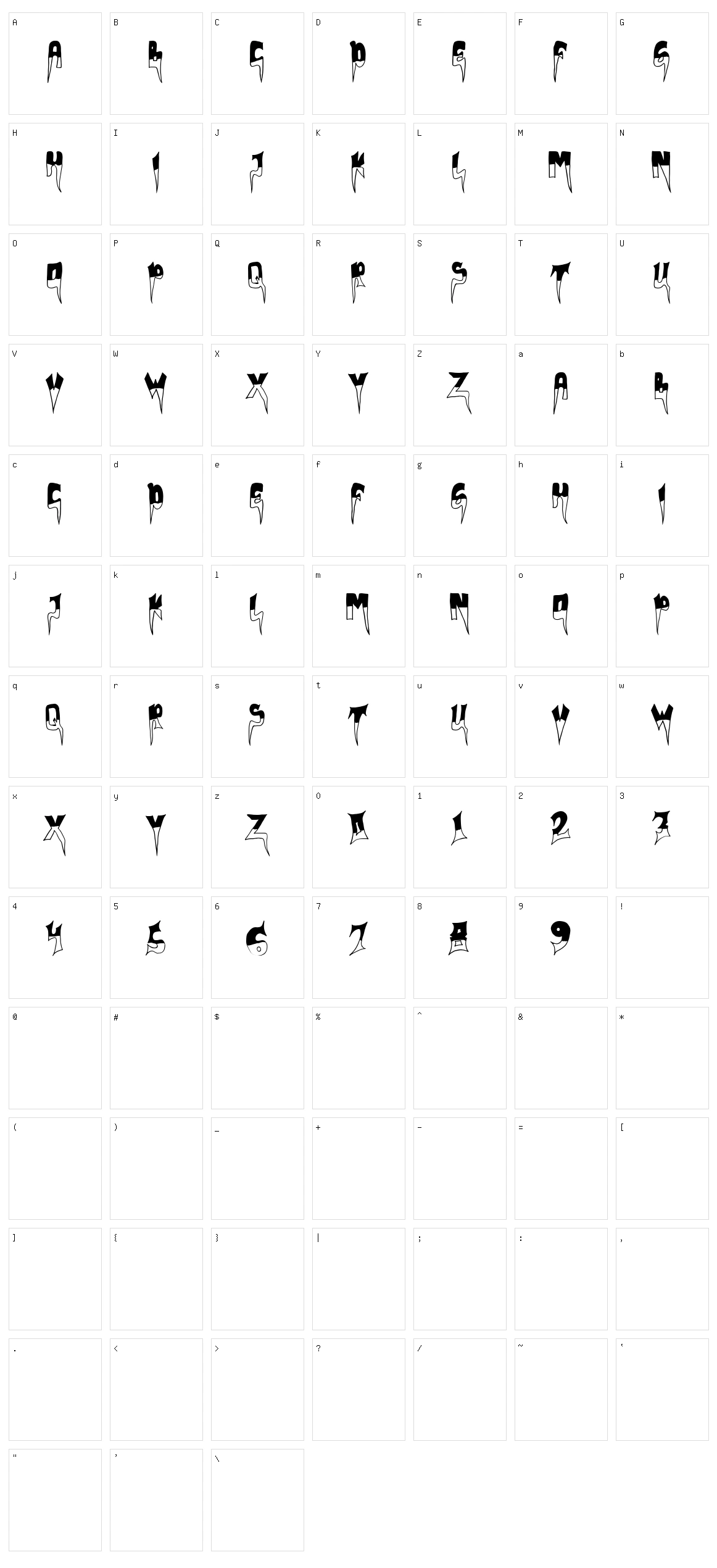
The free font Xlarge is carefully designed by Ditya Ananto, showcasing a thoughtful balance of creativity and usability and falls under the Horror font style. When you download the ZIP file, it contains only 20.64 KB of font files, making it lightweight and quick to download. Please review the license details below to understand permitted usage and distribution rights. If license information is not available, we recommend using this font for personal projects only or contacting the author directly for commercial usage permissions.